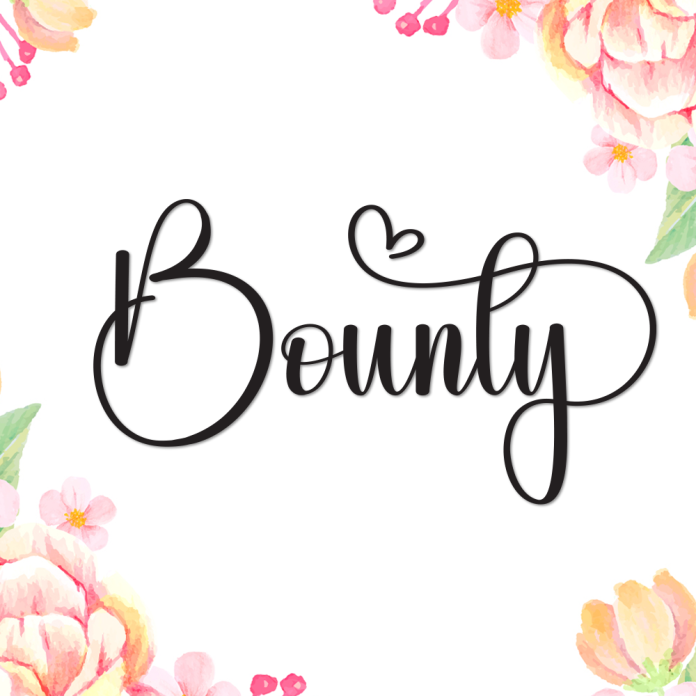
Bounty is a cheerful and bold handwriting font with a playful personality. Its slightly chunky strokes and hand-drawn charm make it perfect for designs that need a warm, inviting, and personal touch.
Whether you're crafting logos, children’s books, packaging, or creative social media posts, Bounty adds a burst of friendliness and fun.
Handwritten style with bold, rounded lines
Fun and approachable aesthetic
Great for posters, branding, cards, and playful packaging
Includes uppercase, lowercase, numbers, and symbols
Supports multiple languages
Bring a little joy and creativity to your words with Bounty — a font that feels like a smile on paper.